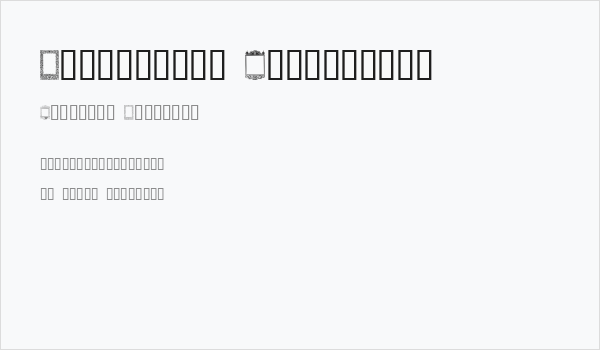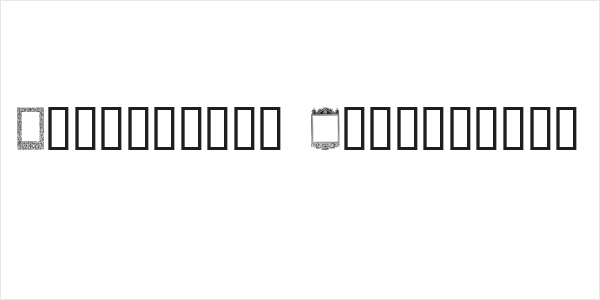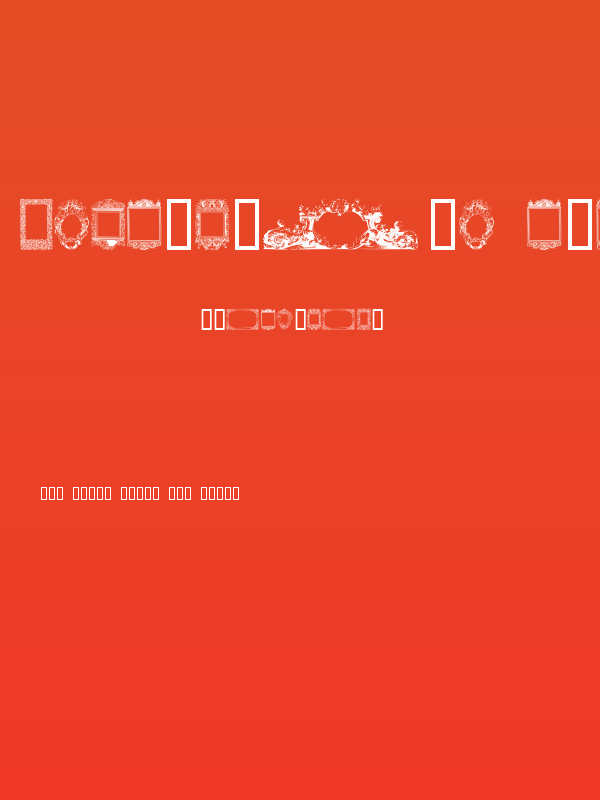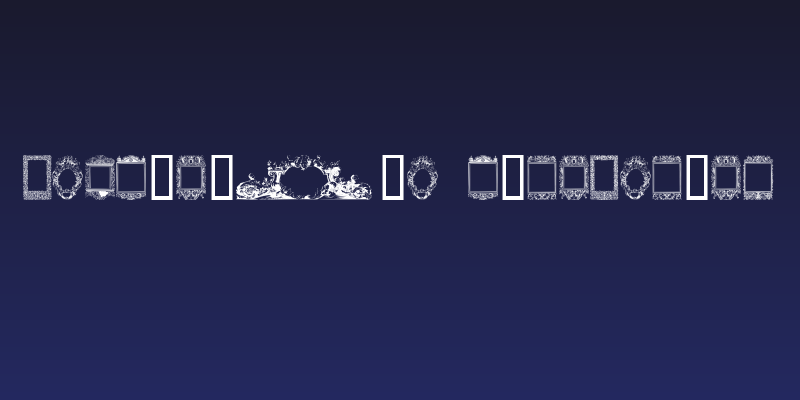
Decorative Ornamental Font
Decorative Ornamental Description
This font is a highly decorative and ornamental style, characterized by intricate and elaborate designs that resemble ornate frames or borders. Each character is enclosed within a detailed, artistic frame, giving it a unique and luxurious appearance. The design elements are reminiscent of vintage or classical motifs, often featuring floral or baroque patterns. This font is not meant for body text but rather for decorative purposes where a touch of elegance and sophistication is desired. The characters are bold and striking, making them suitable for standout headlines or artistic projects.
| Proposed Projects | Ideal for wedding invitations, luxury brand logos, decorative posters, and artistic projects requiring a vintage or classical touch. |